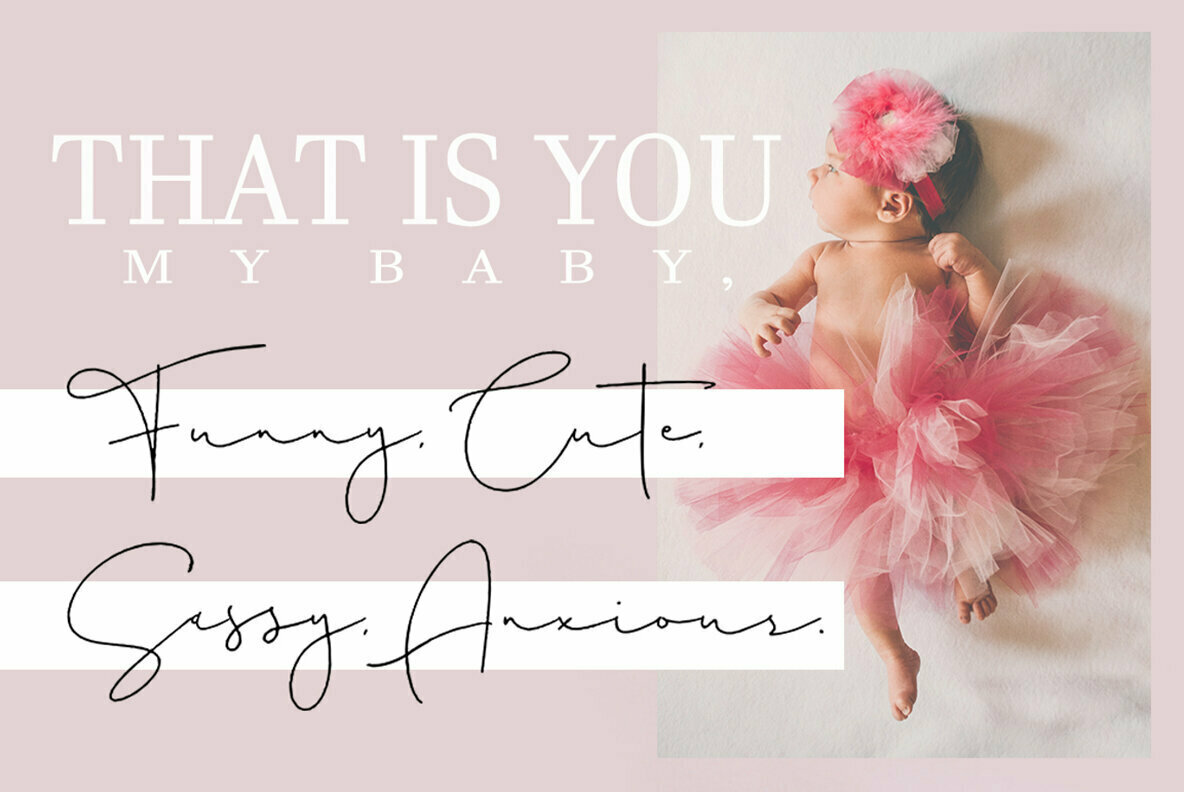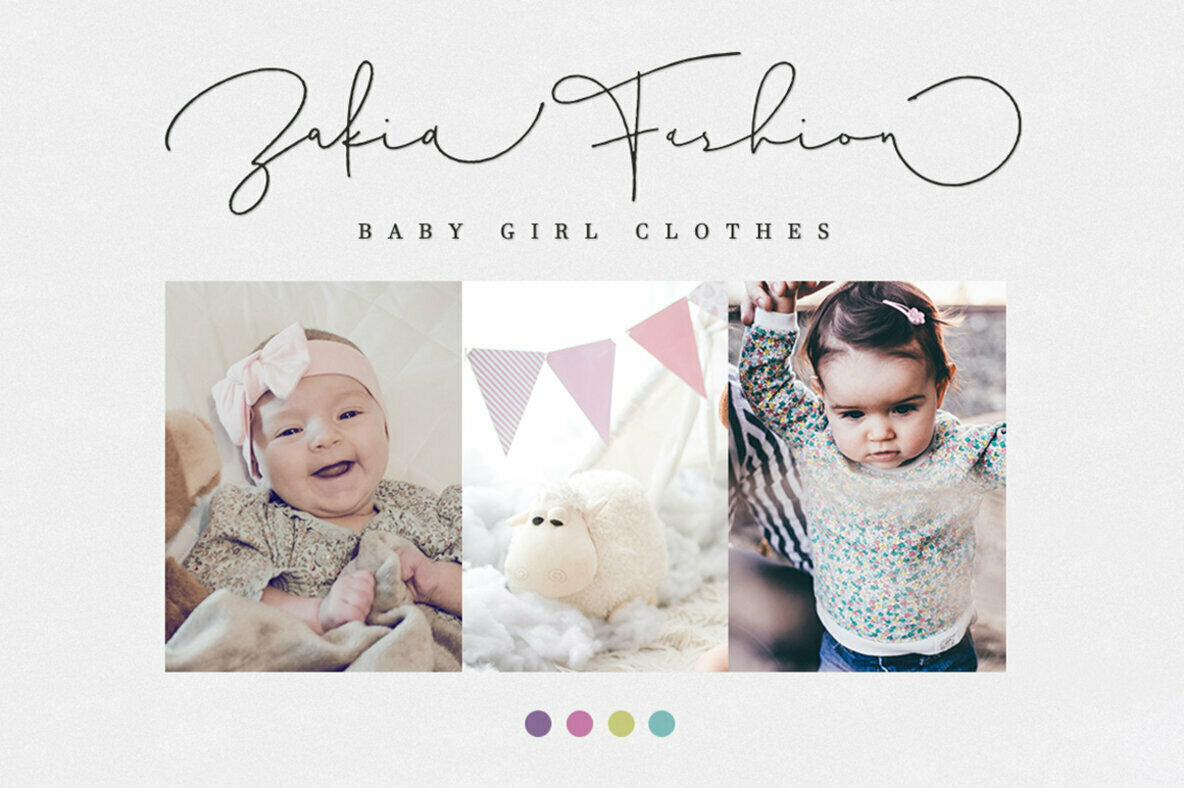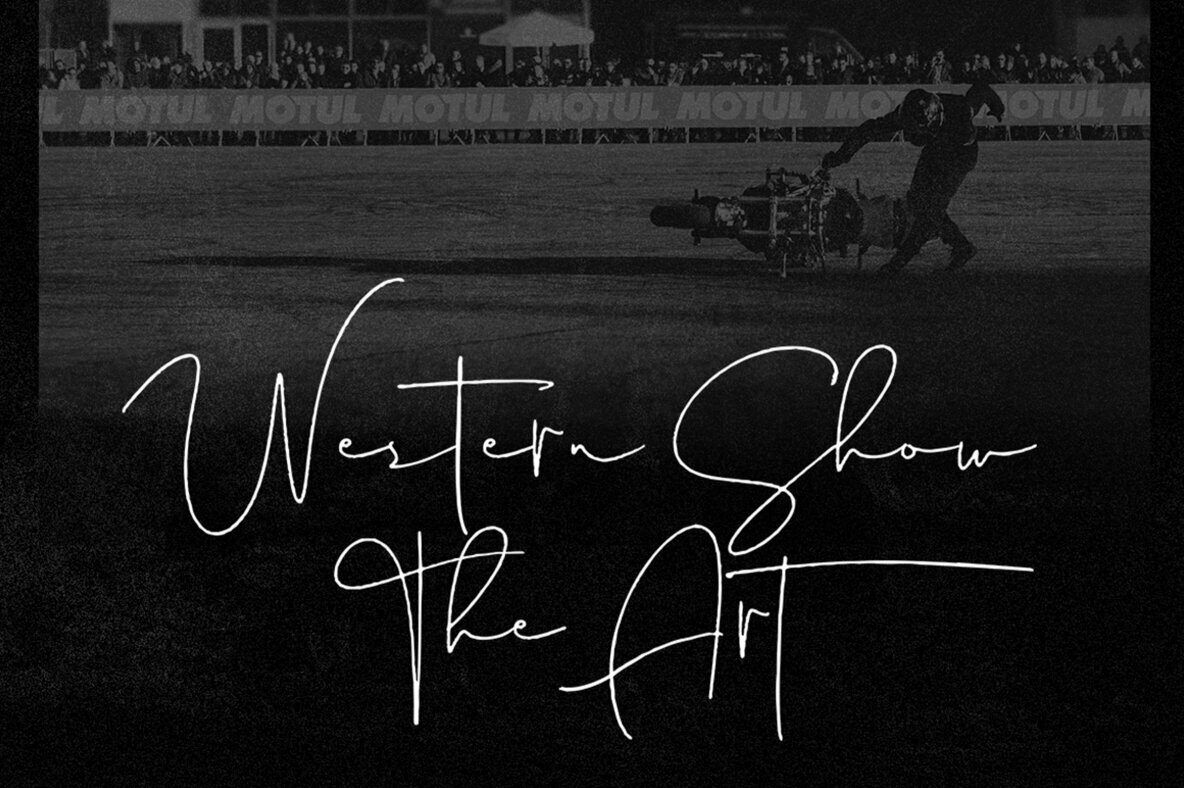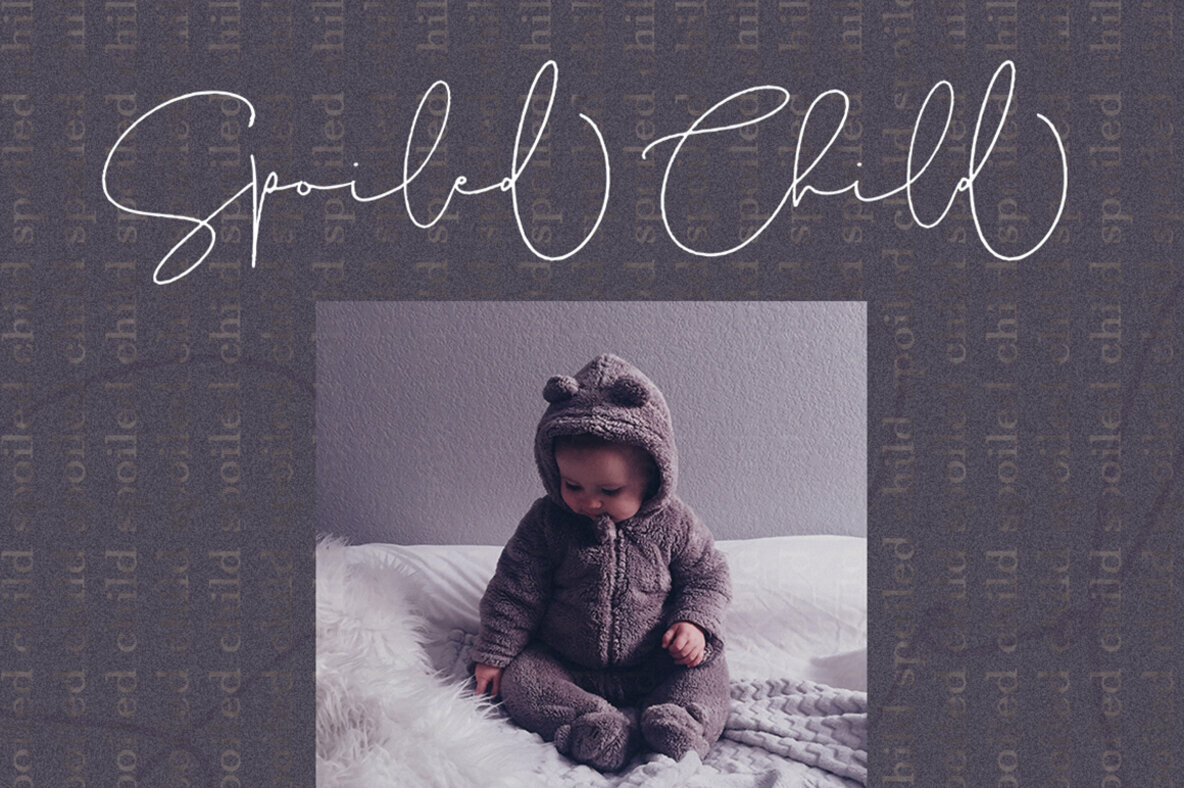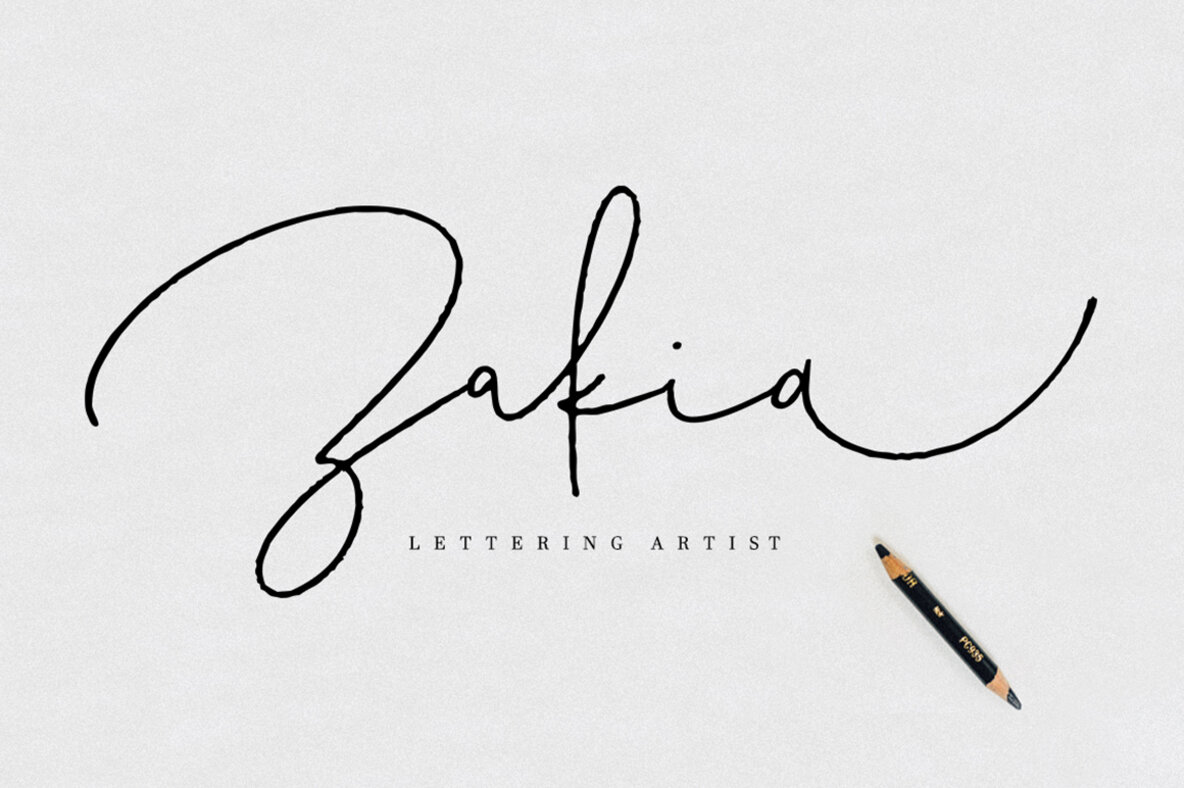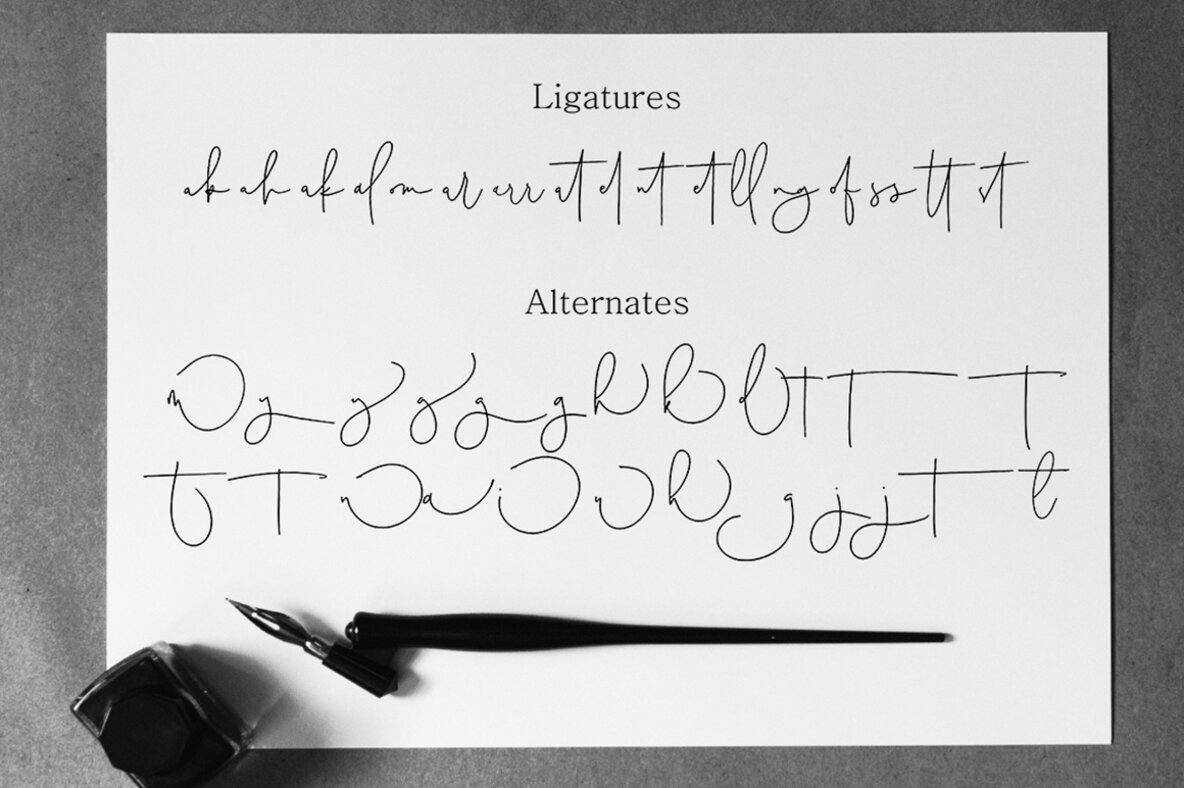
Australia Signature Script 1
Australia Script is an elegant monoline handwriting font that has a signature style, this font is intentionally made with ligatures and unique alternates. Australia is perfect for invitations, greeting cards, news, branding, logos, business cards, posters, product packaging, blog posters etc.